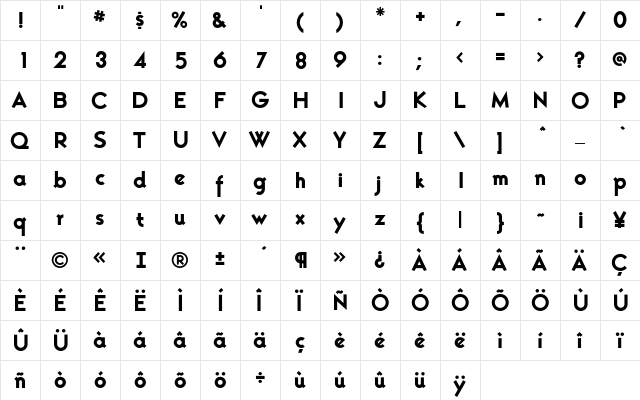
Simplix D V Bold
Design Context for Simplix D V Typeface
Simplix D V offers clean, dependable letterforms without strong stylistic allegiance, making it a practical choice for designers who need flexibility. Its bold stroke weight gives it real presence on the page.